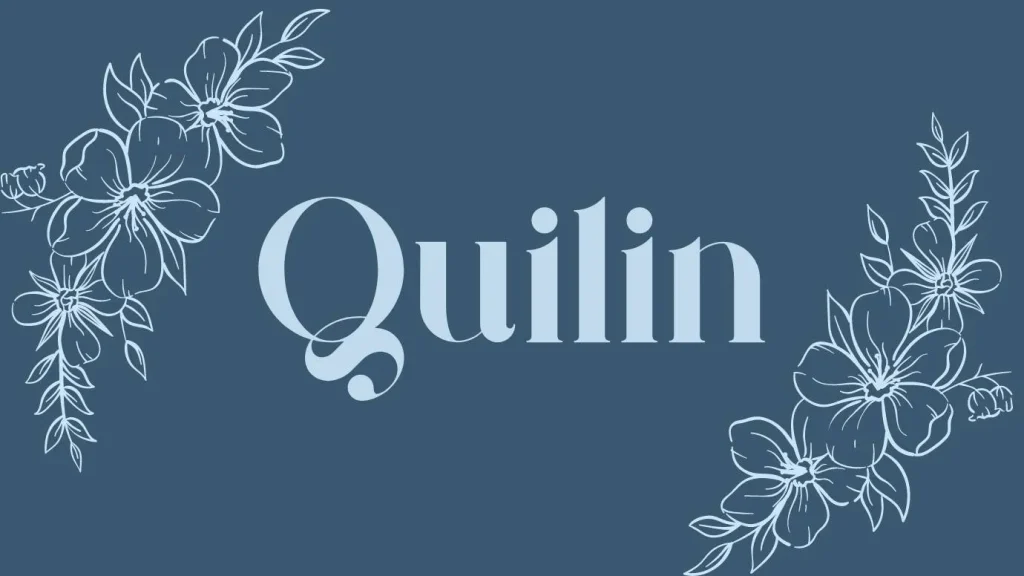
It has an amazing character set that will bring more beauty and elegance to your project design. The typeface has the capacity to gain the attention of the
This is a nice Serif design. The typeface has a unique and elegant 497-character set. The text design can be paired with similar typefaces to create interesting and unique designs. You can pair the typeface with the Bernaber Font and make your project design more attractive.
It has an amazing character set that will bring more beauty and elegance to your project design. The typeface has the capacity to gain the attention of the viewer and bring creativity to your work. This text design be generated by the online font generator tool facility.
Any project content will look elegant after using this text style. The typeface can make your design more cheerful and interesting in front of the clients. It will give shine and uniqueness to the project. No matter what are you going to be creating like a logo for the new brand, website designs, posters, and banner creation.
By using this typeface, you can make invitation cards such as wedding cards, business card designs, and so on. The font has the ability to make elegant designs that add more fashion and glamour to the project layout. If you want to make a design that is both exclusive and grabs attention, it is crucial to pair this font with the kia font.
This amusing lettering style is ideal for making interesting designs just because it has all the attractive symbols. The text style will add elegance and joy to your project if you are making a new logo design for any gaming website. The typeface is also a nice option for creating banners and poster designs for any event.
Yes, the typeface is an incredible option for creating headlines because it has clear readability the content can be seen far away.
It is a nice serif typeface. The typeface has a unique and elegant 497-character set.
This nice and elegant typeface was created by VPcreativesho.